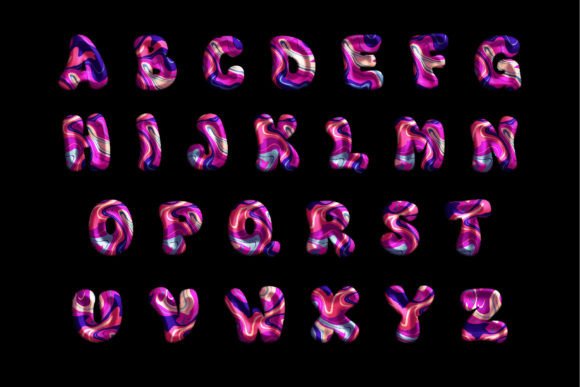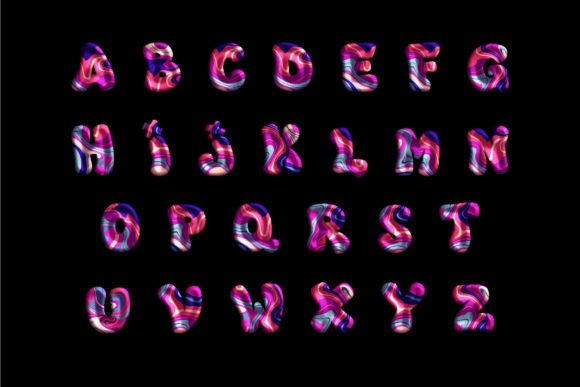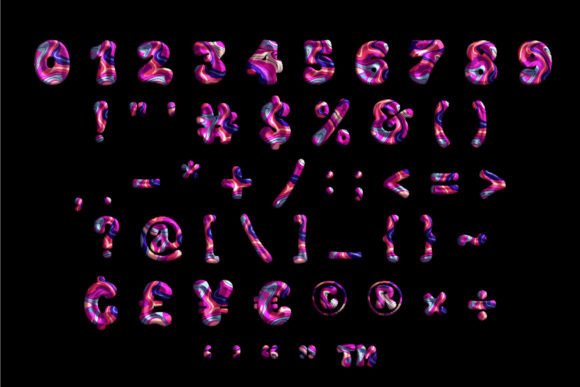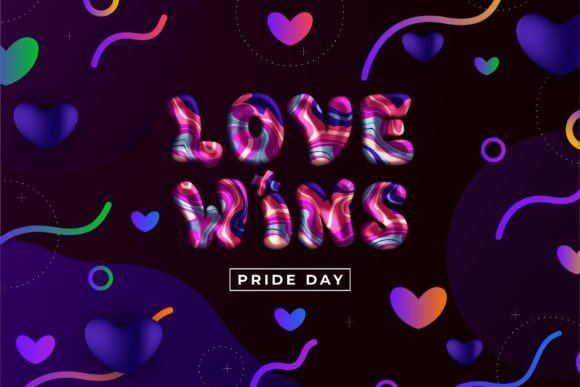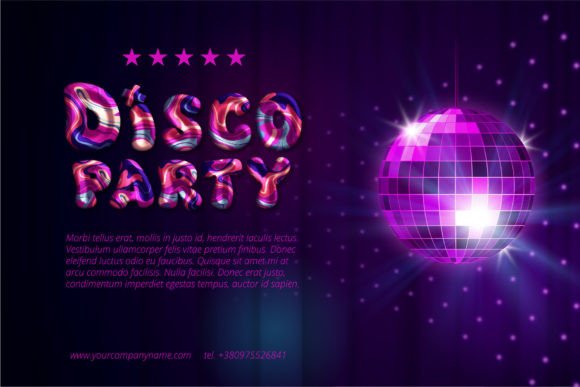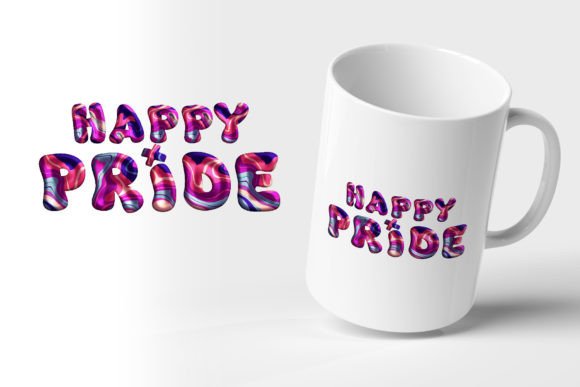
Introducing Enjoy Font: The Cute and Fun Color Font to Elevate Your Creations
Are you tired of using the same old fonts for your creative projects? Look no further than Enjoy Font, a charming and playful color font that’s sure to capture your heart. With its authentic feel and versatility, Enjoy Font is the perfect addition to your design toolkit. In this article, we’ll explore the features and benefits of Enjoy Font, and provide tips on how to make the most of this beautiful font.
What is Enjoy Font?
Enjoy Font is a unique and delightful color font that’s designed to add a touch of personality to your creations. Whether you’re working on invitations, stationery art, social media posts, or greeting cards, Enjoy Font is sure to make your designs stand out. Its authentic feel and cute aesthetic make it perfect for a wide range of projects, from DIY crafts to professional design work.
Key Features of Enjoy Font
- Cute and Fun Design: Enjoy Font boasts a playful and charming design that’s sure to capture your audience’s attention.
- Authentic Feel: With its authentic feel, Enjoy Font adds a touch of personality to your designs, making them more relatable and engaging.
- Color Font: Unlike traditional fonts, Enjoy Font comes in a range of colors, allowing you to add an extra pop of color to your designs.
- Versatile: Enjoy Font is perfect for a wide range of projects, from invitations and stationery art to social media posts and greeting cards.
- Invitations: Use Enjoy Font to create beautiful and eye-catching invitations for special occasions like weddings, birthdays, and baby showers.
- Stationery Art: Add a touch of personality to your stationery art with Enjoy Font. Create gorgeous cards, journals, and planners that are sure to impress.
- Social Media Posts: Make your social media posts stand out with Enjoy Font. Use it to create eye-catching graphics, quotes, and announcements that are sure to grab your audience’s attention.
- Greeting Cards: Create cute and personalized greeting cards for special occasions like holidays, birthdays, and anniversaries.
- Experiment with Different Colors: Don’t be afraid to experiment with different colors and combinations. Enjoy Font looks great in a range of colors, from bright and bold to soft and pastel.